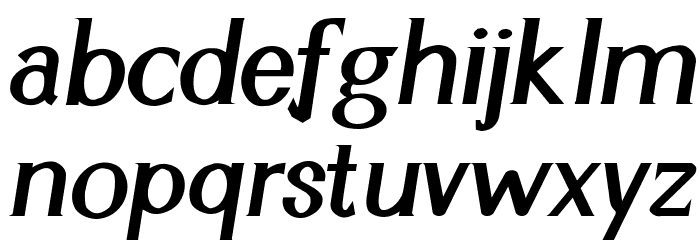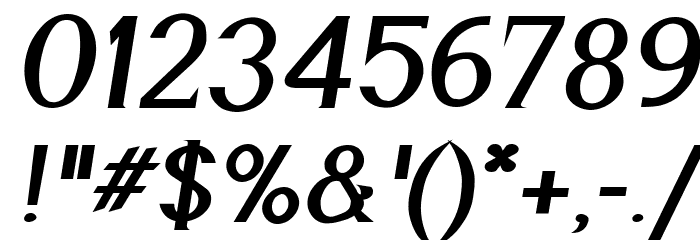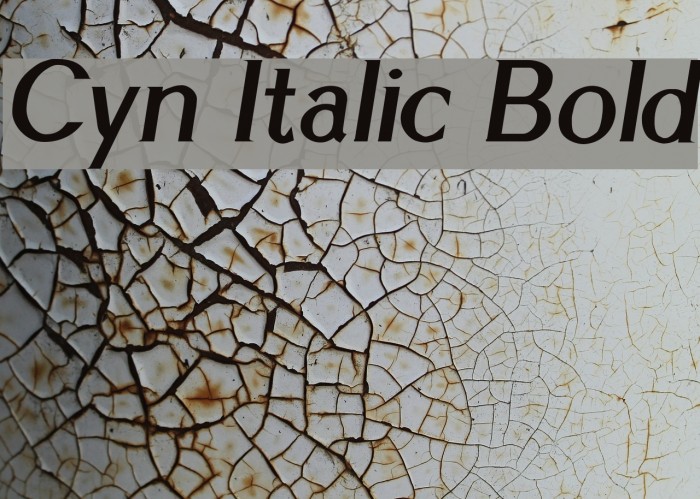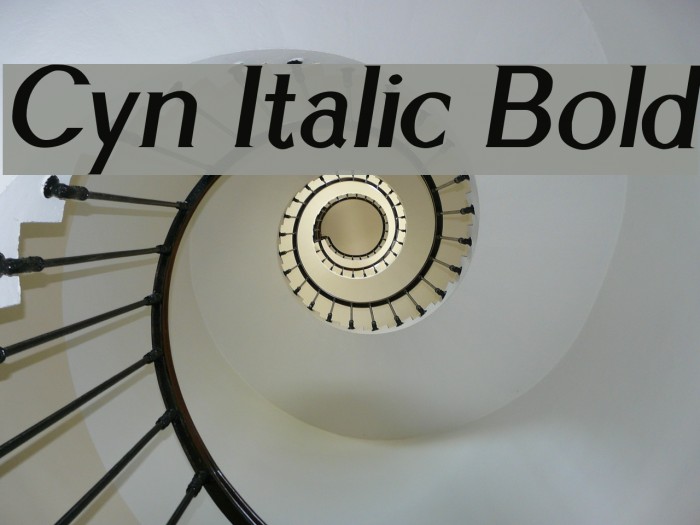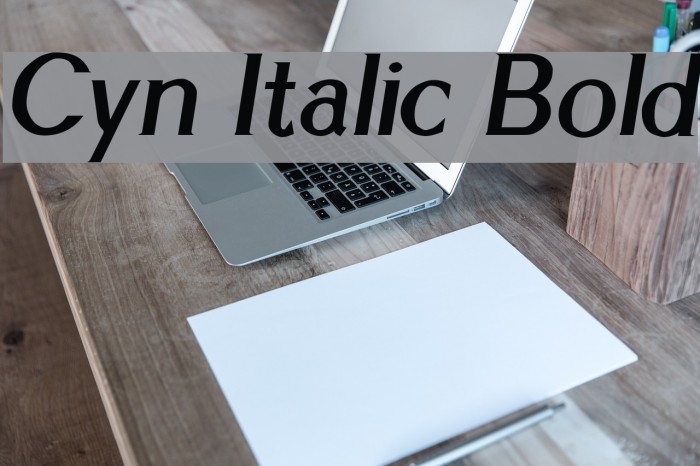
Cyn Italic Bold Font
This font features a dynamic and elegant italic style with bold strokes, giving it a strong and confident appearance. The letters are slightly slanted, adding a sense of motion and fluidity. The uppercase letters are tall and commanding, while the lowercase letters maintain a consistent flow. The numerals are clear and well-defined, matching the overall boldness of the font. Special characters are distinct and integrate seamlessly with the rest of the character set. This font's bold and italic nature makes it suitable for impactful and expressive designs.
A bold, italic font with dynamic strokes and a confident appearance.
- Proposed Projects: Ideal for branding, advertising, and editorial design where a strong and elegant presence is required.